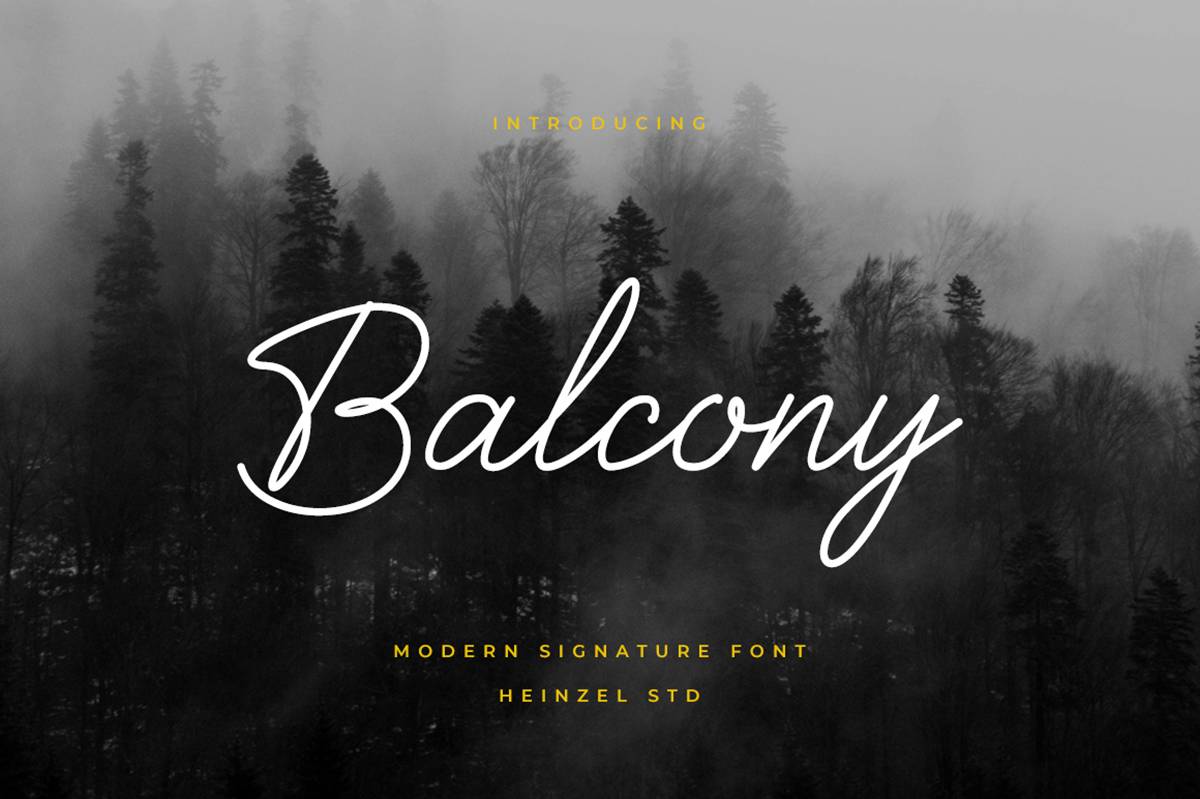
Balcony is an elegant, delicate script font with thin, flowing strokes that evoke a natural handwritten signature style. Its light weight and smooth curves make it perfect for adding a personal, refined touch to branding, invitations, and sophisticated editorial designs. This font works especially well in contexts where a graceful, approachable yet stylish feel is desired.
Balcony Font
About Balcony Font
| Font family | Balcony Font |
| Designer | Nofi Sofyan Hadi |